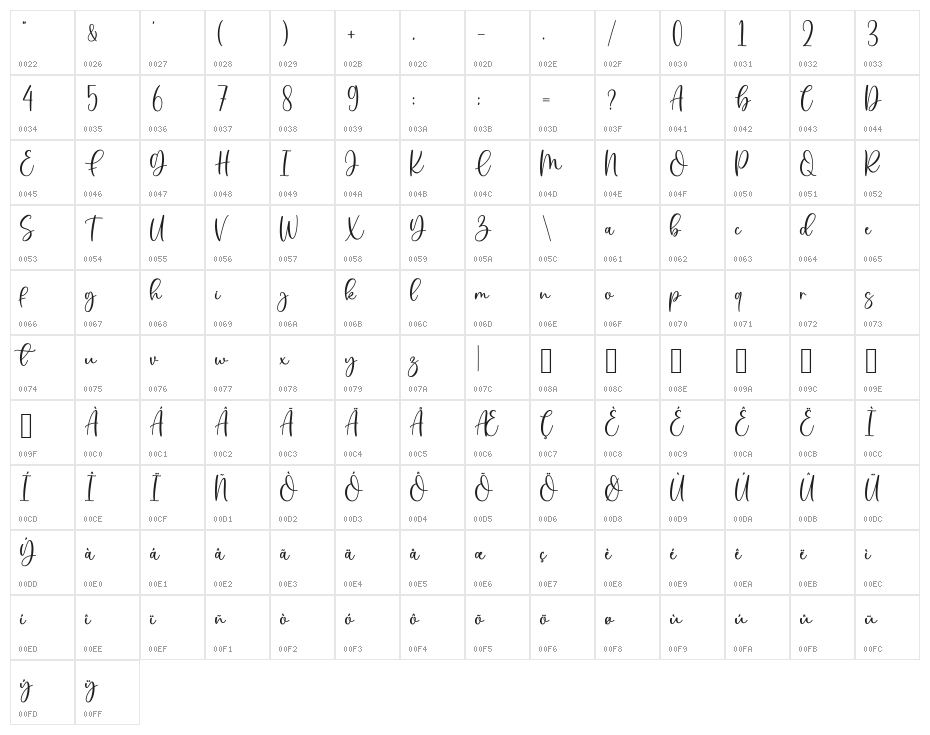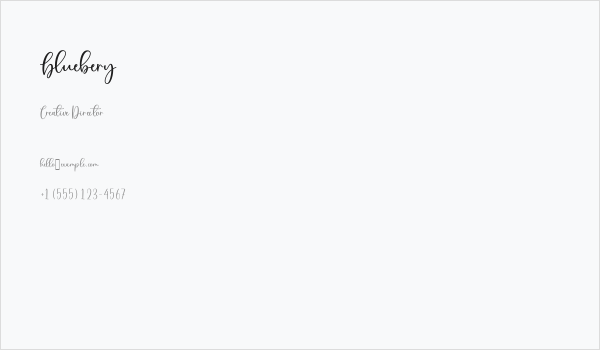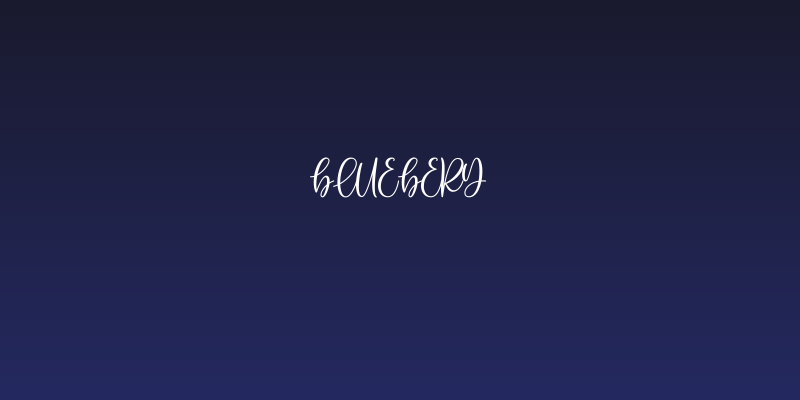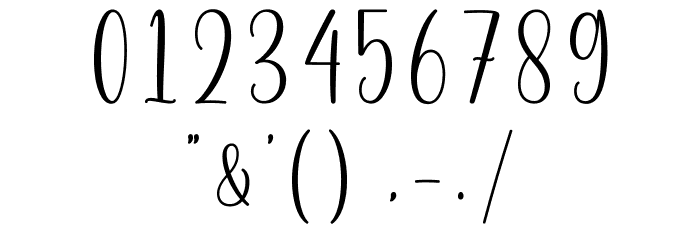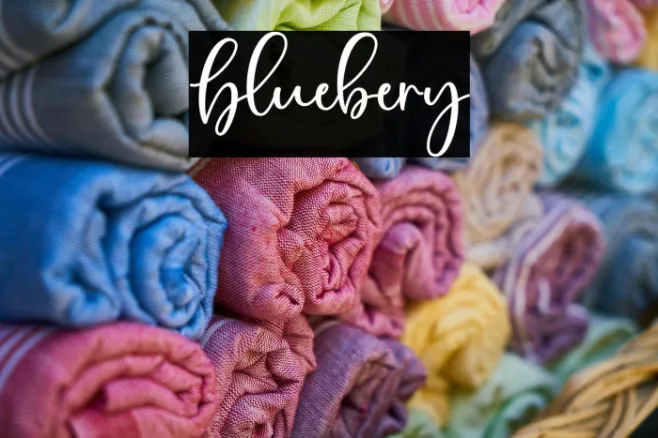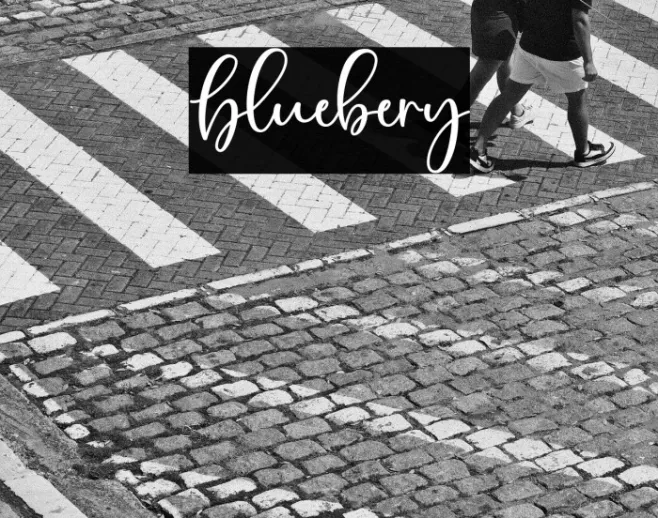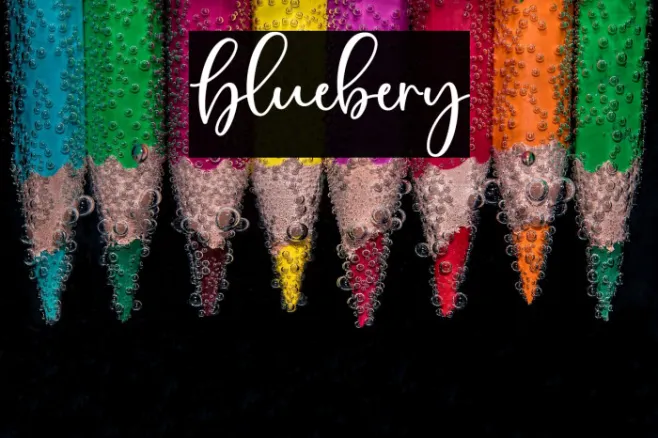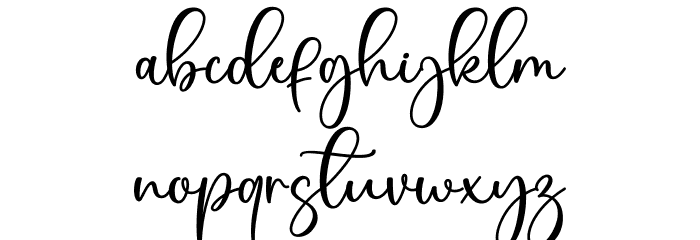
Bluebery Font
Bluebery Description
This font exudes a playful and elegant script style, characterized by its flowing, cursive letterforms. The uppercase letters are bold and expressive, with a slight slant that adds a dynamic feel. The lowercase letters maintain a consistent flow, enhancing readability while preserving the font's artistic flair. Numbers and special characters are designed to complement the overall script style, ensuring a cohesive look across all text elements. The font's strokes vary in thickness, providing a medium contrast that adds depth and interest without compromising legibility. Its handwritten appearance makes it ideal for projects that require a personal touch.